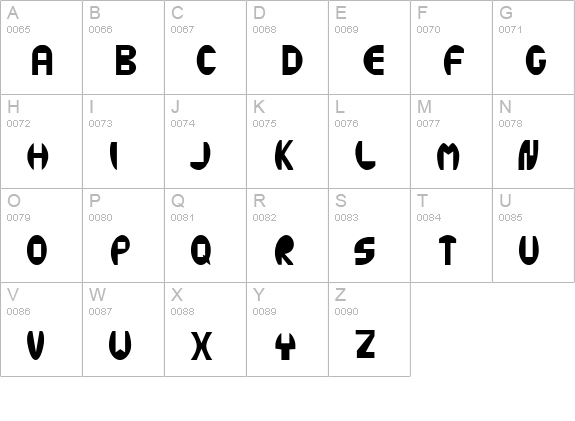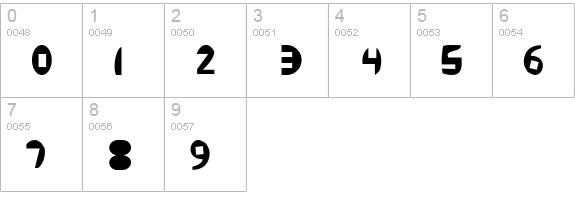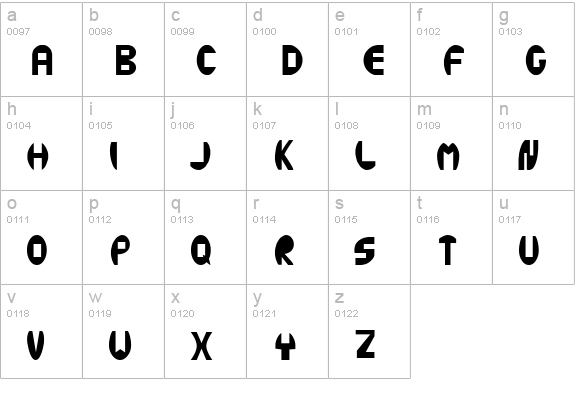
Chance Font Details
Chance font is a modern and stylish typeface that exudes elegance and sophistication. With its sleek lines and contemporary design, this font is perfect for a wide range of projects, from branding to editorial design. The clean and minimalist look of Chance font makes it versatile and easy to read, making it an ideal choice for both print and digital applications. What sets Chance font apart is not only its aesthetic appeal but also its accessibility. This font is available for free download at FontsMarket.com, making it a valuable resource for designers and creatives looking to elevate their work without breaking the bank. Whether you're working on a logo, website, or marketing materials, Chance font is sure to add a touch of class and professionalism to your projects. Download it today and unleash your creativity with this stunning typeface.